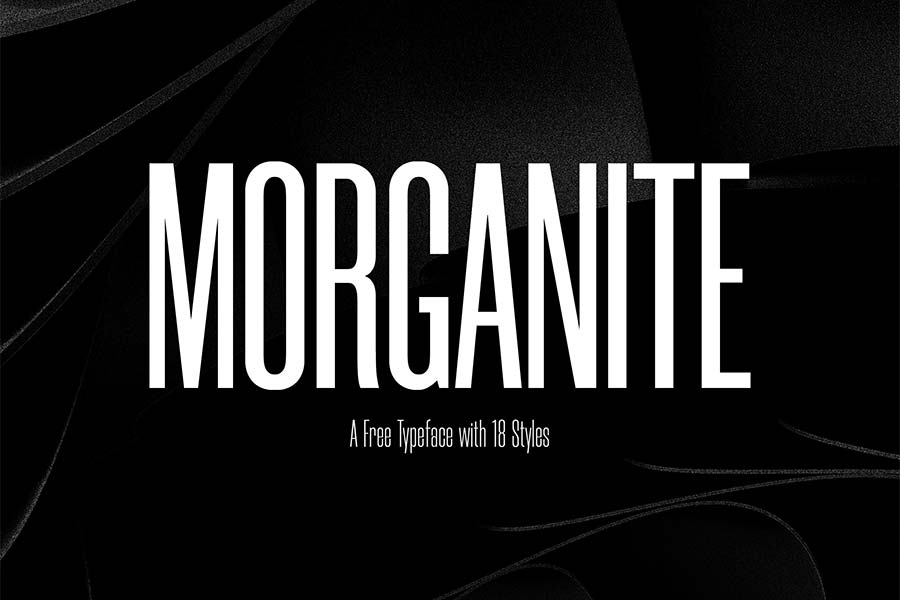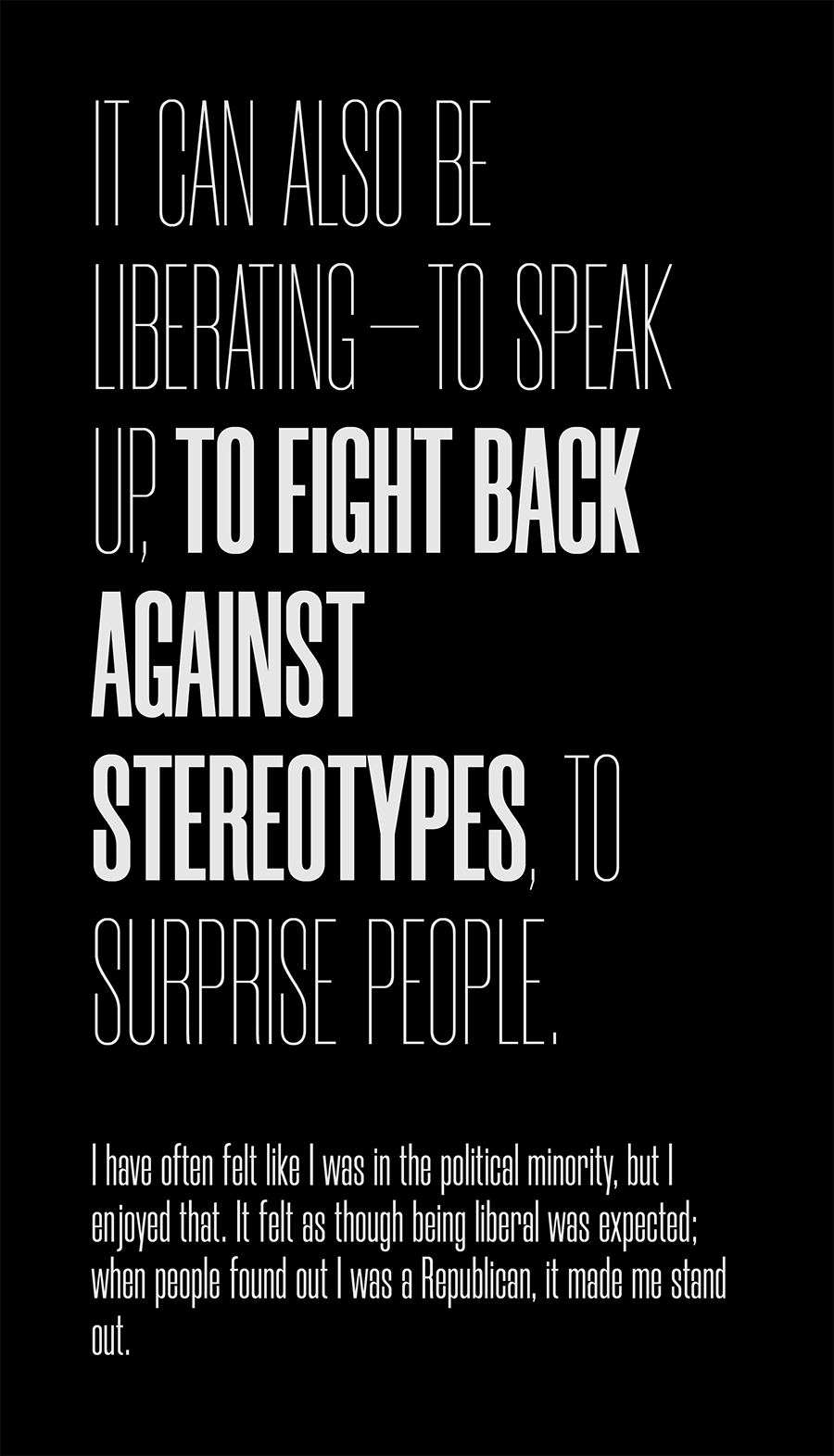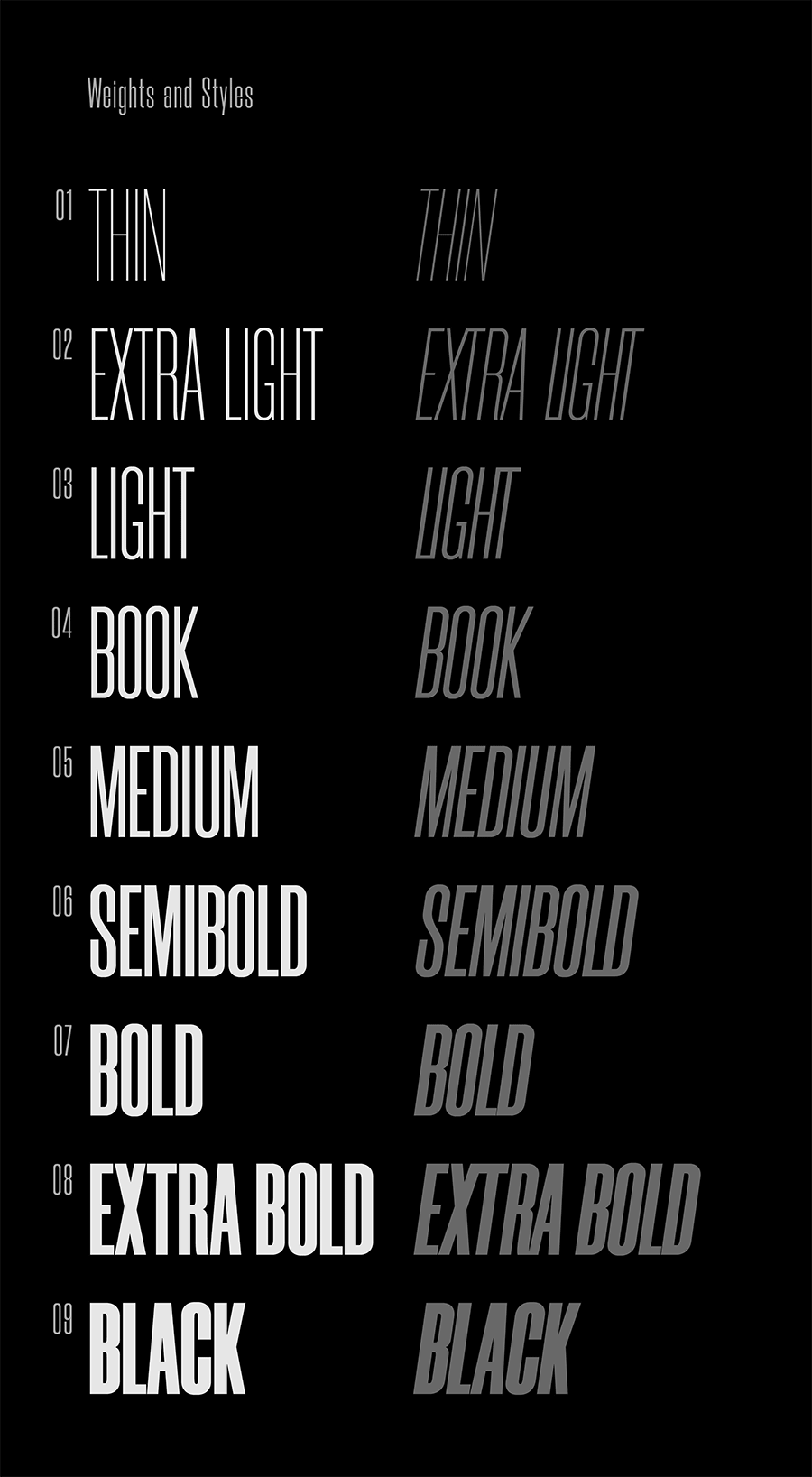
Morganite© is a free ultra condensed sans serif font family. It comes with a huge 18 styles with font weight ranging from thin to black with italic pairs. As the font is narrow in width, it’s mostly suitable for headlines and logo mark.
- Designer: Rajesh Rajput
- Styles: 18
- Category: Sans Serif